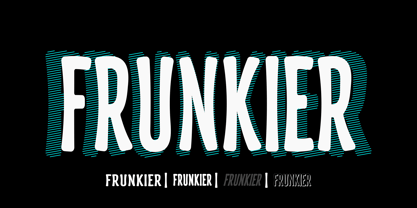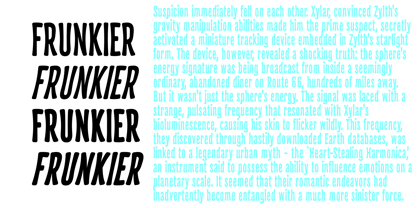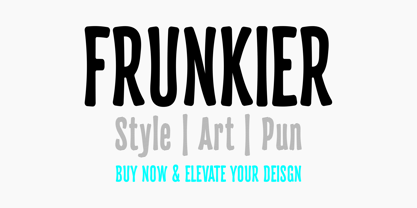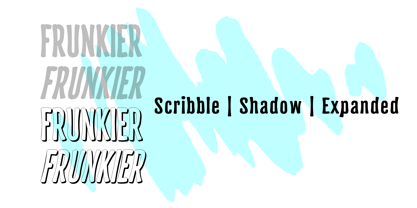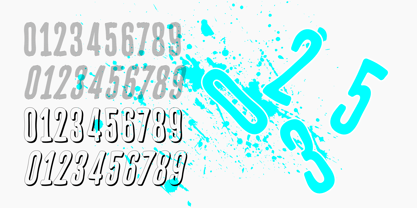
Frunkier
by Kufic Studio
The Frunkier Font Family was designed by Ahsan Ahmedzai and published by Kufic Studio. Frunkier contains 10 styles and family package options.
Frunkier is where fun meets style!
Bursting with personality, this playful and joyful font brings an instant spark of happiness to any design. Its lively curves and whimsical letterforms make it perfect for projects that need a splash of cheer—whether it’s children’s books, party invitations, quirky branding, or eye-catching social media posts.
To give your creativity even more freedom, Frunkier comes in Regular, Expanded, Scribble, and Shadow versions—allowing you to mix, match, and layer for dynamic, one-of-a-kind results.
With its upbeat energy and charming character, Frunkier doesn’t just tell your story—it makes it dance!